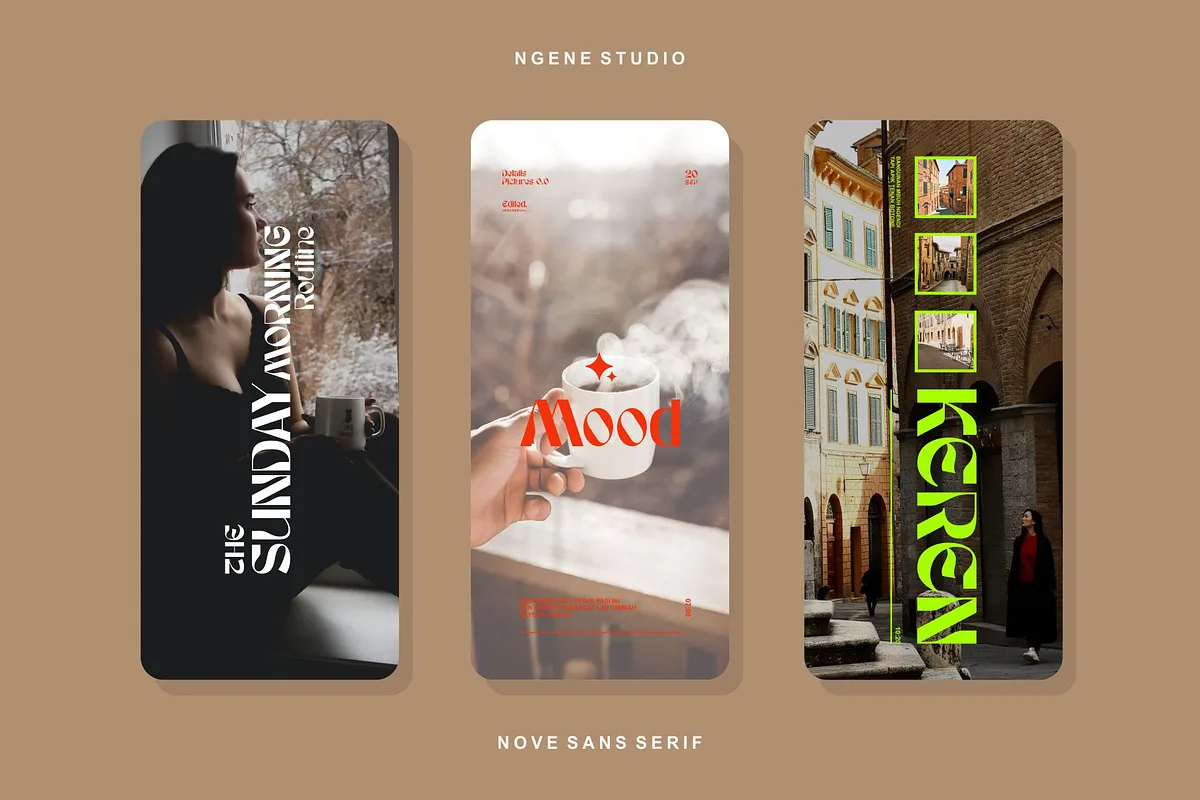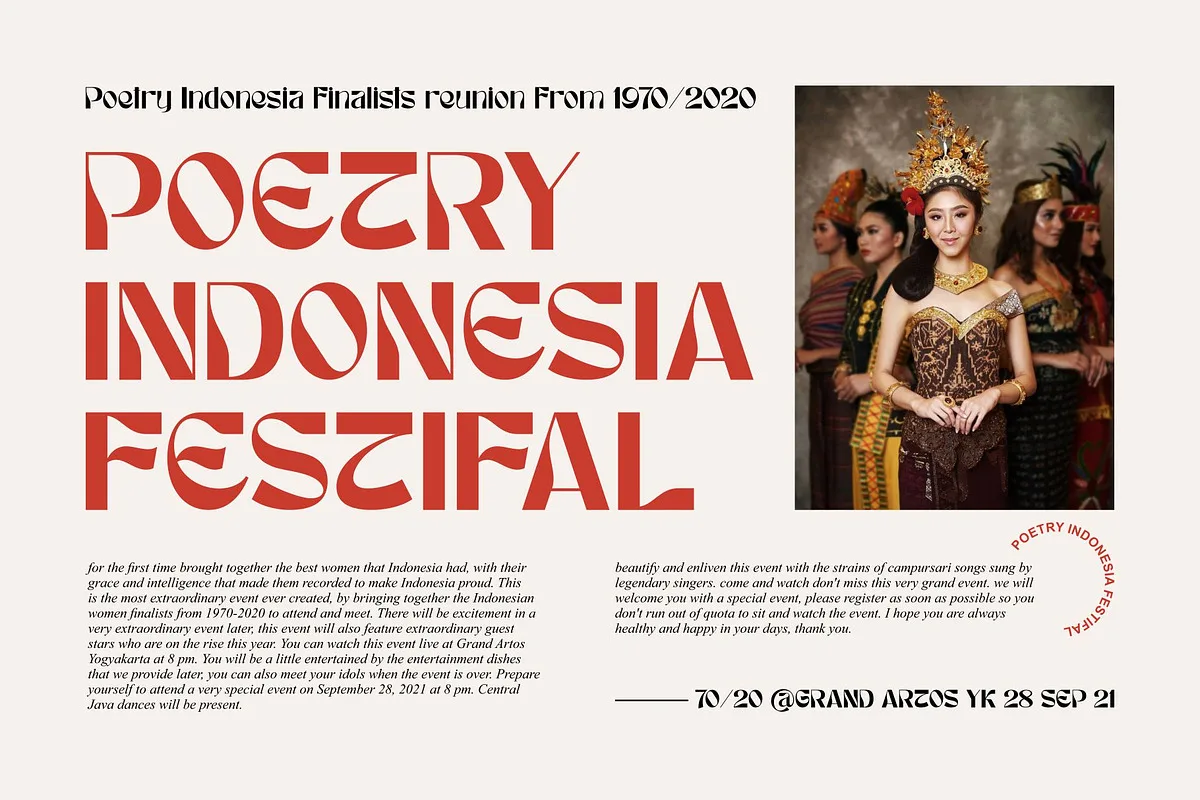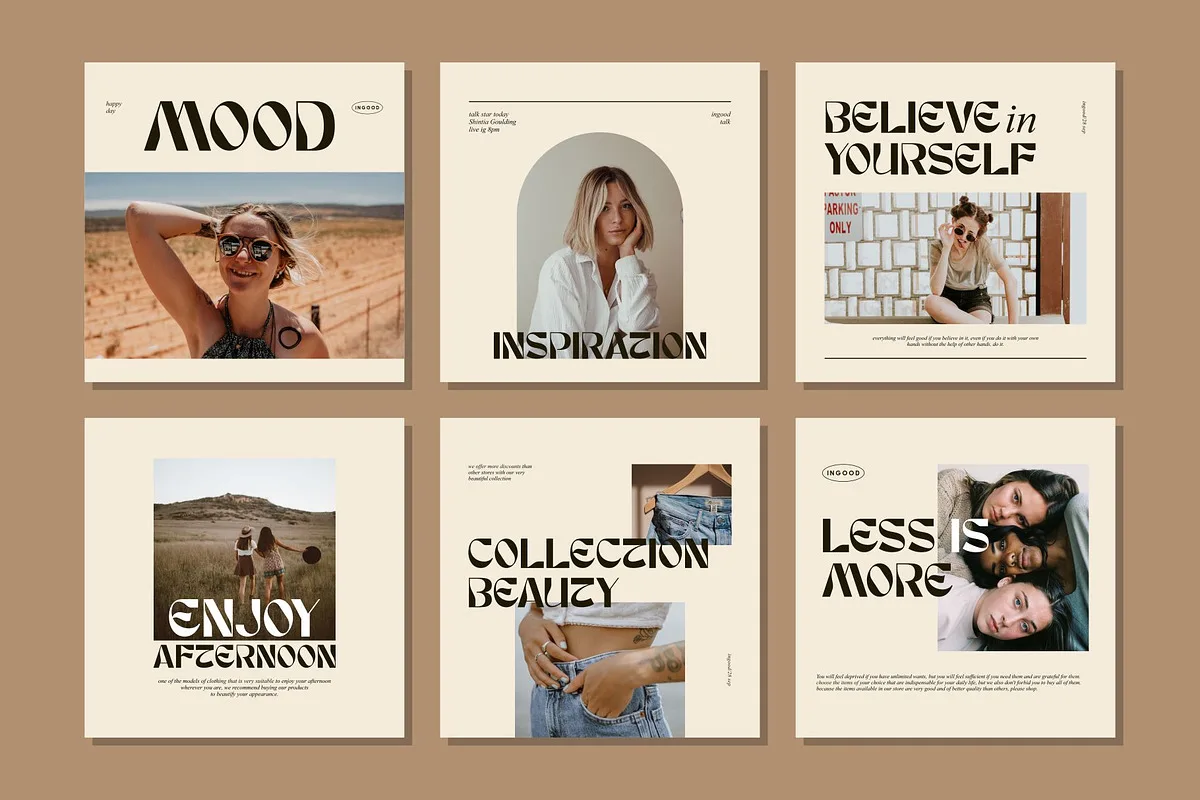
This NOVE comes with a modern and contemporary touch in it. This font is great for your design projects such as logos, magazines, web designs, posters, invitation cards, packaging, badges, logo types, clothing designs, labels and more. This font is so cool that it makes it easy for you to beautify the writing you need. Nove Sans Serif also supports multilingual.